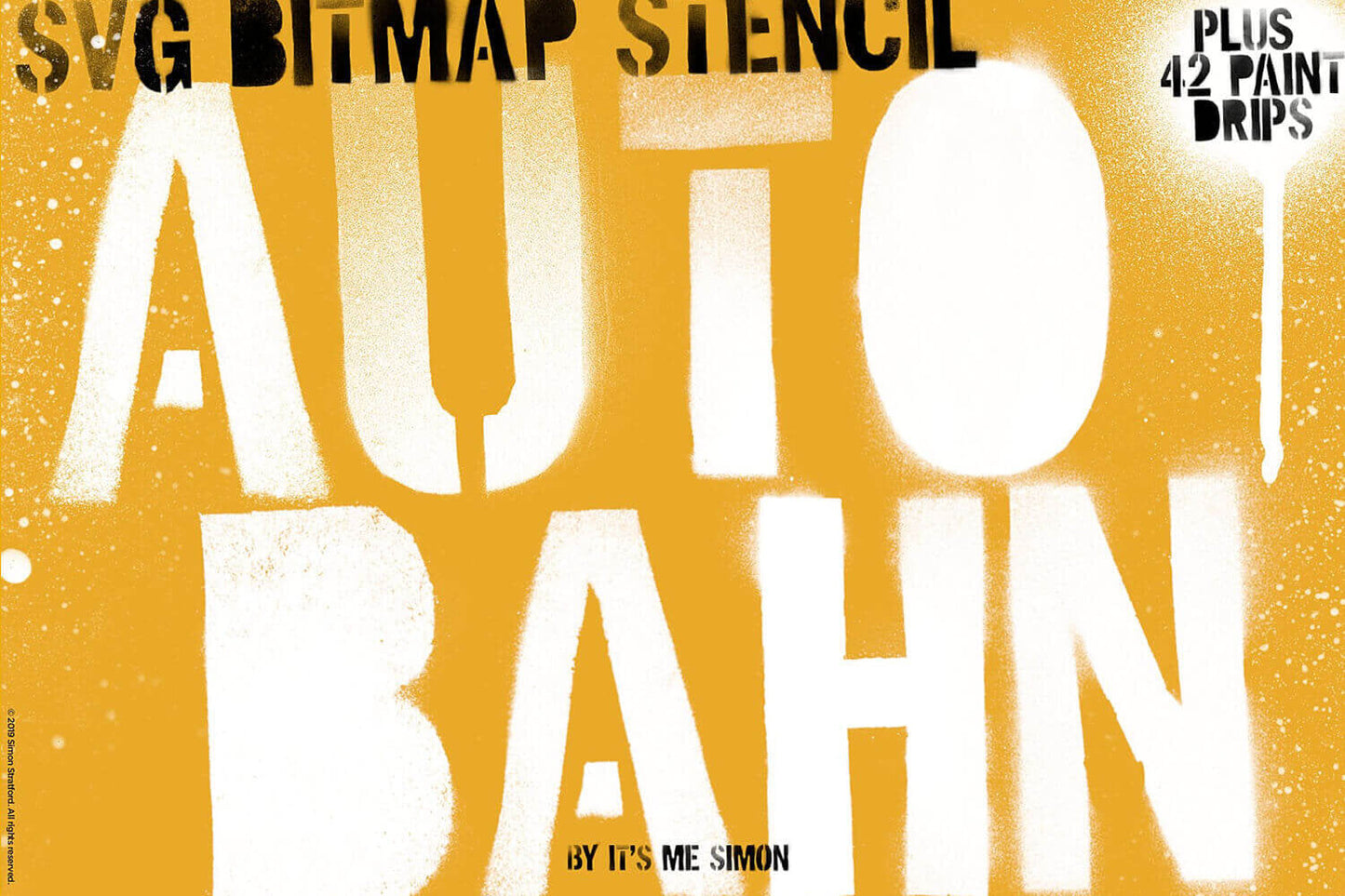
A stencil font should look as though somebody actually made it—it should punch you in the face while also kicking you in the balls with its detail! Mind the Gap and Autobahn do just that.
Both fonts began with real cut stencils, real spray paint and all the overspray, splatter, and dirty paint that a real stencil font should have. There are plenty of stencil fonts—None do detail quite like these two.
Simply the best detail you can have in a font: if you need an authentic stencil font for posters, packaging, album artwork, streetwear, advertising or editorial design, choose Mind the Gap for bold hand-cut structure and extensive alternatives, or Autobahn for maximum spray-paint texture using OpenType SVG technology.
Most stencil fonts are too clean
That is the problem.
Comparing Autobahn or Mind the Gap to an ordinary stencil font is like comparing a punk to your grandmother: one leaves paint on the walls, the other worries it won’t come out.
A real stencil does not produce perfect geometry. Paint catches beneath the card. Overspray softens the edge. Counters clog. Paper shifts. One letter behaves itself and the other is having a party with the baseline.
The rule is simple: maximum dirt, maximum detail—if it dosnt have that then don't buy it!
That inconsistency is not damage. It is the design.
I made Mind the Gap and Autobahn from physical stencils rather than adding a distressed filter to clean digital lettering afterwards. The texture belongs to the letters because it was created with them.
I’ve pushed the number of points a font can contain to its absolute limit, to give you the most detailed stencil font money can buy.
Mind the Gap: the detailed hand-cut stencil font
Mind the Gap was inspired by London’s Underground: the signs, the platforms and that beautifully polite warning delivered while everybody is being compressed into a moving sauna.
I cut the letter stencils by hand and sprayed them with black paint. The result has a strong industrial and military flavour, but it does not feel like another anonymous army font. The irregular cuts and sprayed edges give it a distinct London character.
Mind the Gap includes:
- Uppercase and lowercase letters
- Numbers, punctuation and symbols
- A stylistic alternative for uppercase and lowercase A–Z
- Extra alternatives for selected letters
- Three alternatives for the numerals
Those alternatives matter. Repeated letters are one of the quickest ways to reveal that supposedly handmade typography came from a font. Swap the repeated glyphs and the result becomes less mechanical, more varied and far more convincing.
Best for: editorial headlines, punk graphics, packaging, music artwork, posters, apparel and identity work that needs weight without looking manufactured.
Autobahn: the OpenType SVG stencil font
Autobahn pushes the physical detail further. I cut the stencils from cardboard, then sprayed every character with black acrylic paint. Some letters are controlled. Others contain heavy overspray, rough edges and paint splatter. Just as they would in the real world.
Autobahn uses OpenType SVG font technology. Unlike a conventional single-colour outline font, an OpenType SVG font can place richer artwork—including raster and vector material—inside the glyph. That is what allows Autobahn to retain the mottled paint, soft spray and tiny variations that ordinary vector outlines tend to flatten or simplify. The technical basis is defined in the OpenType SVG specification.
Most stencil fonts are not OpenType SVG fonts. They are standard vector outlines. That is perfectly useful when you want a crisp, scalable cut shape. It is much less convincing when you want typography that genuinely looks sprayed.
Autobahn also includes:
- A unicase alphabet with alternative characters
- At least two versions of every A–Z letter
- Deliberately rough, splattered and distressed glyphs
- 42 separate high-resolution spray-paint drips
- Editable text with unusually rich surface detail
Best for: streetwear, urban campaigns, album covers, festival posters, packaging, book covers, games and titles that need to look sprayed.
Mind the Gap or Autobahn?
| Feature | Mind the Gap | Autobahn |
|---|---|---|
| Overall character | Bold, industrial and London-inspired | Raw, urban and heavily sprayed |
| Original process | Hand-cut stencils and real spray paint | Cardboard stencils and real acrylic spray paint |
| Font technology | Traditional outline font with stylistic alternatives | OpenType SVG with detailed painted texture |
| Alternatives | Full A–Z alternative set plus additional selected glyphs | Alternative uppercase forms throughout the unicase alphabet |
| Choose it for | Strong cut-stencil lettering with flexible variation | The greatest possible spray, splatter and surface detail |
Why use an ordinary stencil font?
Sometimes you should.
Choose Mind the Gap when you want bold stencil structure and extensive alternatives. Choose Autobahn when only the most detailed OpenType SVG spray-paint finish will do.
Why settle for a stencil font pretending to be handmade when the real thing is sitting right there?